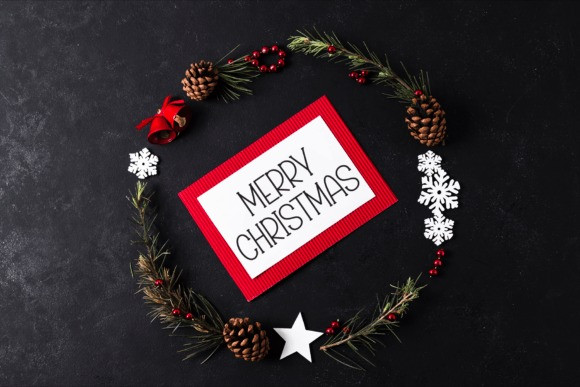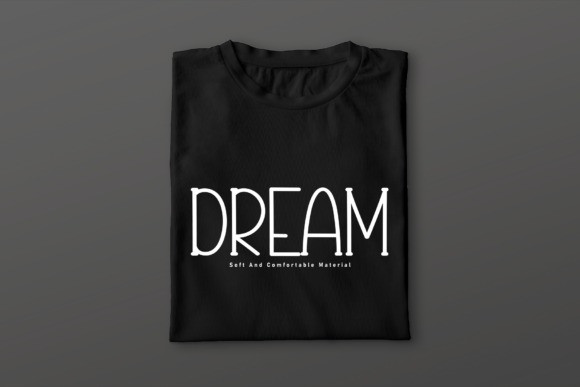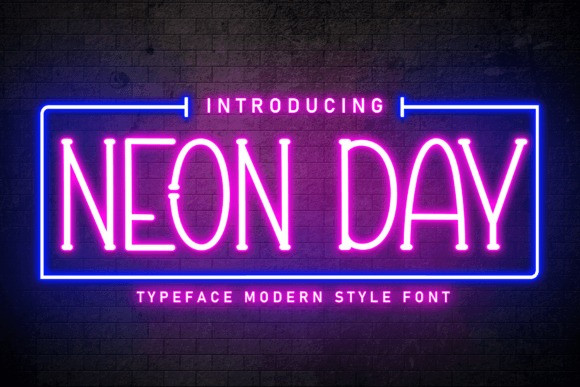
Neon Day Font
Neon Day Font is a vibrant and dynamic display font that captures the essence of urban nightlife. Its sleek and modern design is inspired by the glow of neon lights, creating a lively and energetic feel. Perfect for adding a touch of contemporary flair to headlines, posters, or any design project that demands a bold and eye-catching aesthetic. Illuminate your creations with NeonDay and watch your text come alive with a neon-infused brilliance.